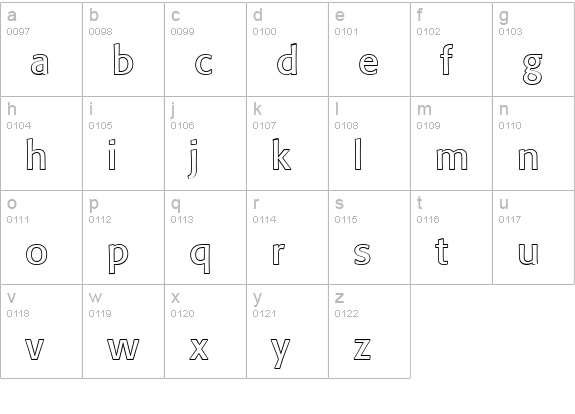
Formata Outline Font Details
Introducing Formata Outline font, a modern and elegant typeface that will add a touch of sophistication to your design projects. With its clean lines and minimalist aesthetic, Formata Outline is perfect for creating sleek and stylish typography. This versatile font is ideal for a wide range of applications, from branding and advertising to web design and social media graphics. The best part? Formata Outline font is available for free download at FontsMarket.com, making it easy to add a professional touch to your projects without breaking the bank. Whether you're a seasoned designer looking for a fresh new font or a beginner searching for the perfect typeface to elevate your work, Formata Outline is sure to impress. Download it today and take your designs to the next level with this stunning and versatile font.